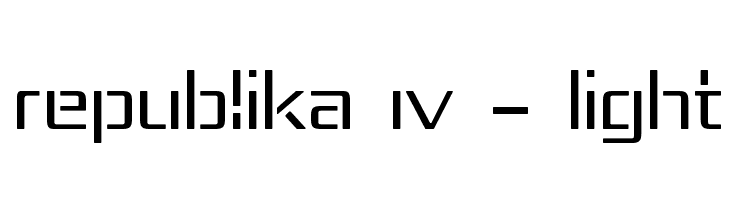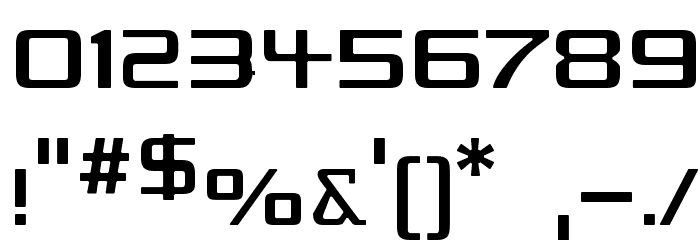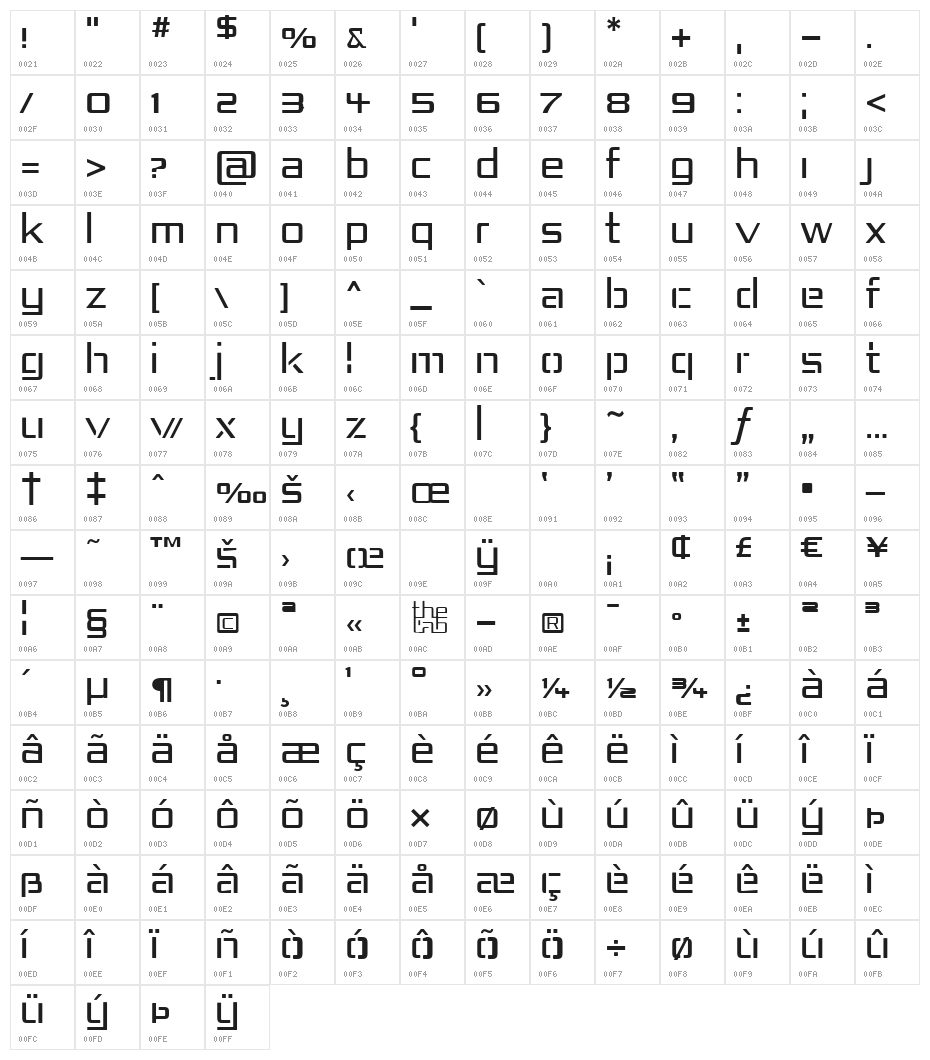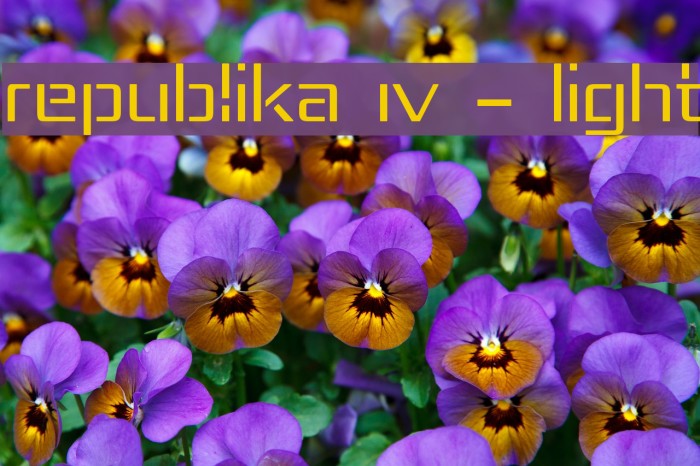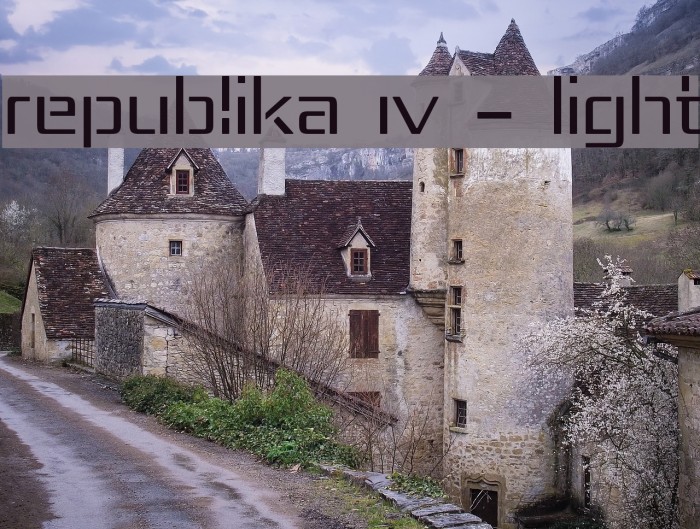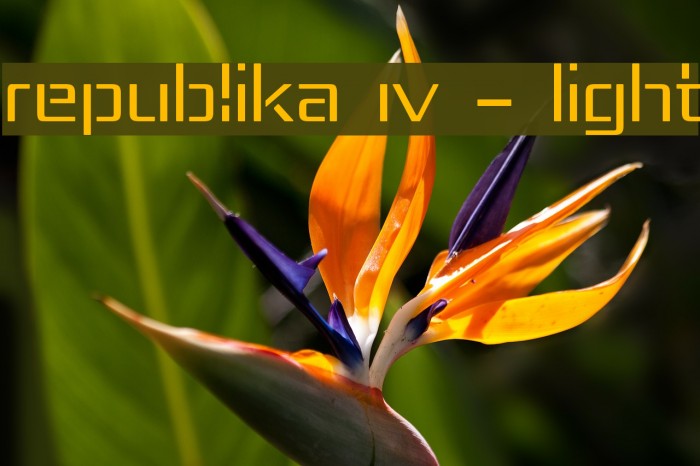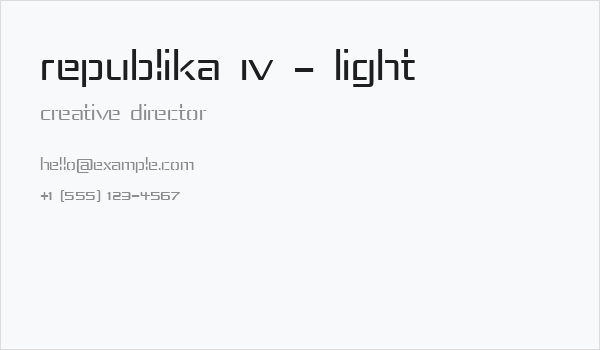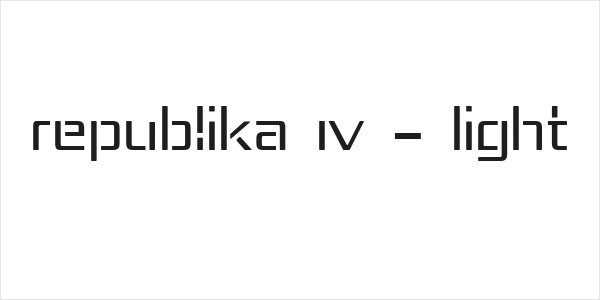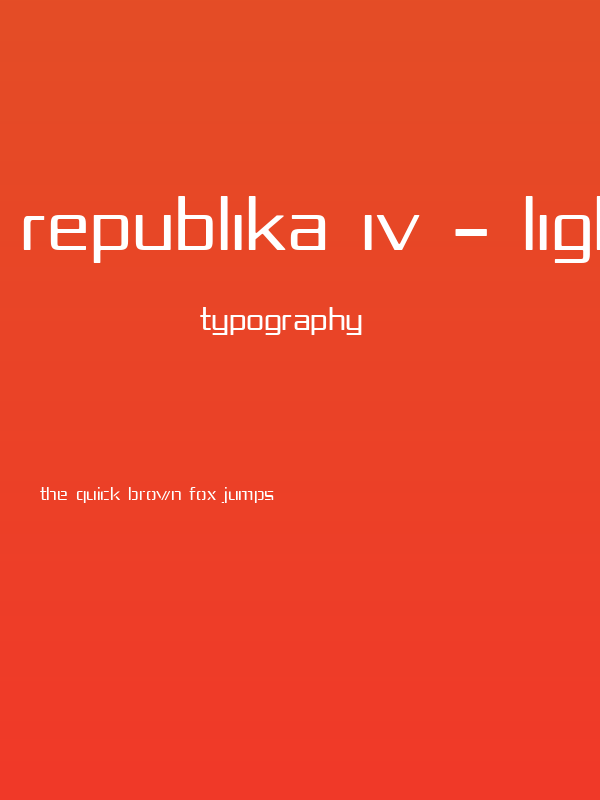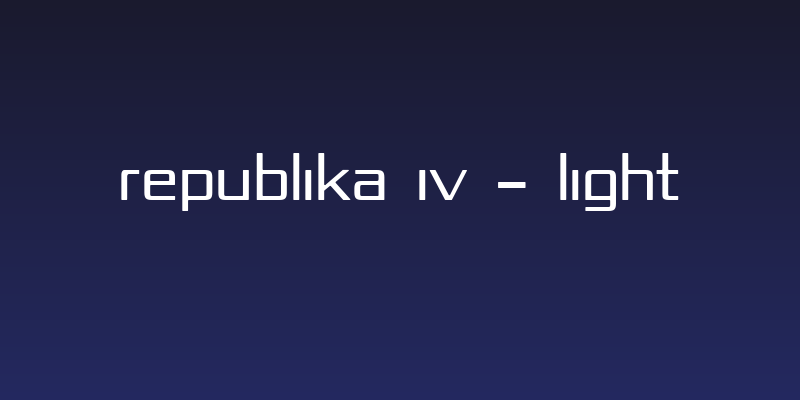
Republika IV - Light Font
Republika IV - Light Description
This font features a geometric and modern design with clean, straight lines and a minimalistic aesthetic. The characters are uniformly structured, offering a futuristic and technical appearance. The uppercase and lowercase letters maintain a consistent height, contributing to a balanced and cohesive look. The numerals and special characters are designed to complement the overall style, ensuring readability and visual harmony. This font is ideal for projects that require a sleek and contemporary feel, making it suitable for technology-related themes or modern branding.
| Use Case | Headlines, Logos, Digital Interfaces |
| Proposed Projects | Ideal for technology branding, modern websites, digital interfaces, and futuristic design projects. |